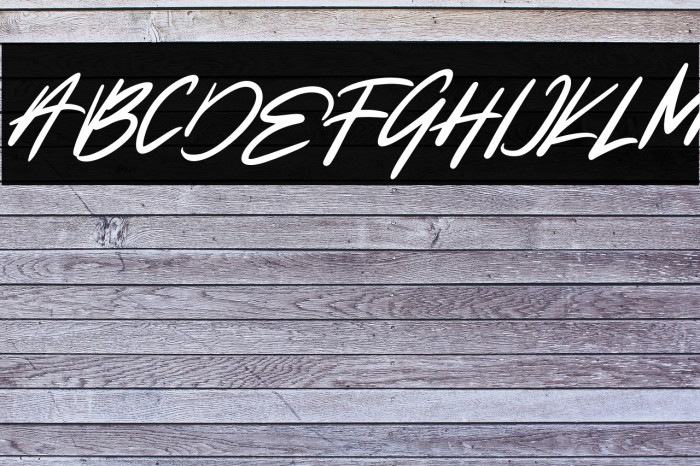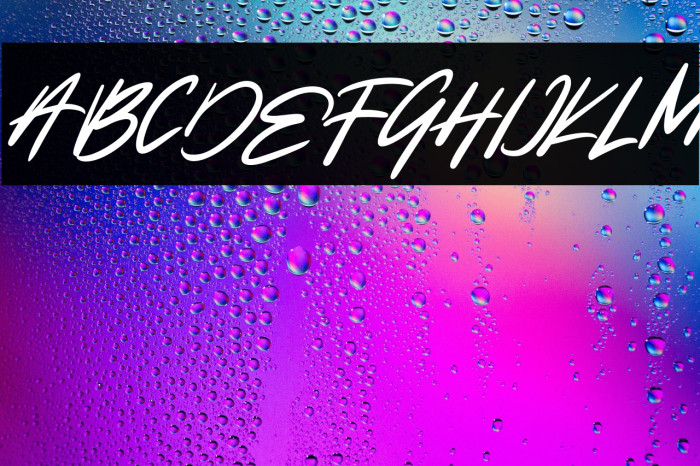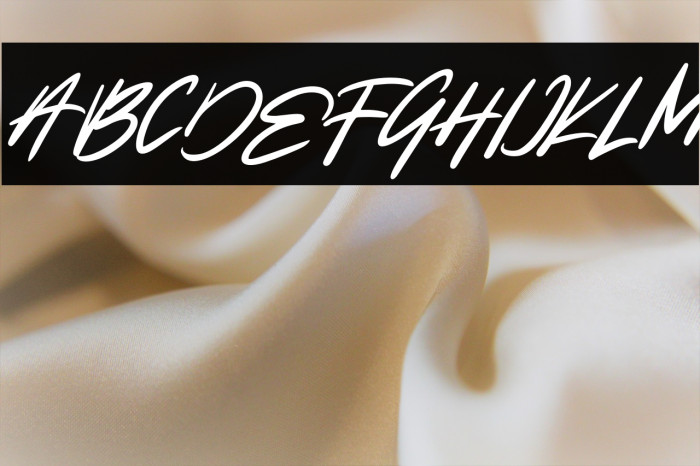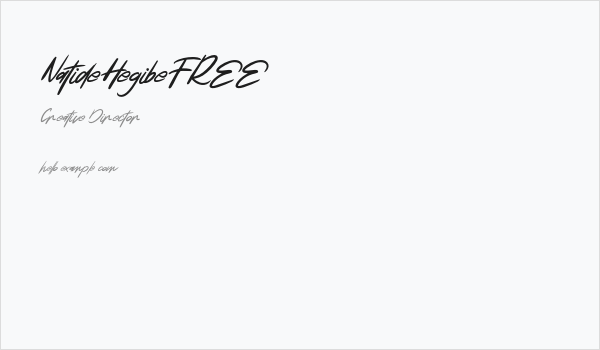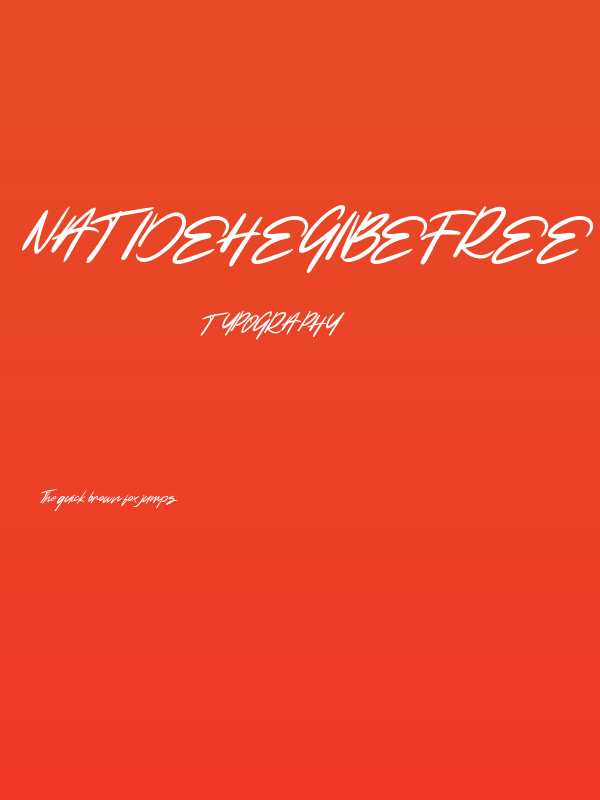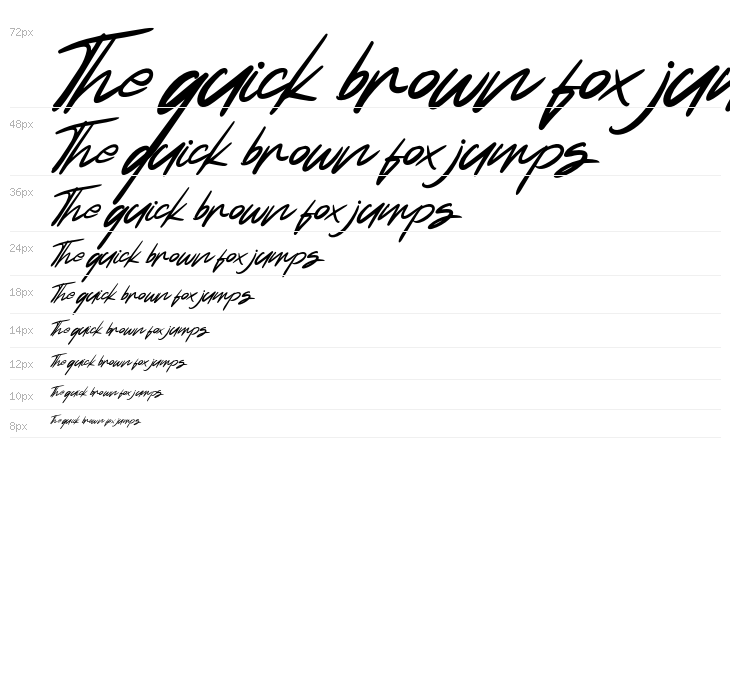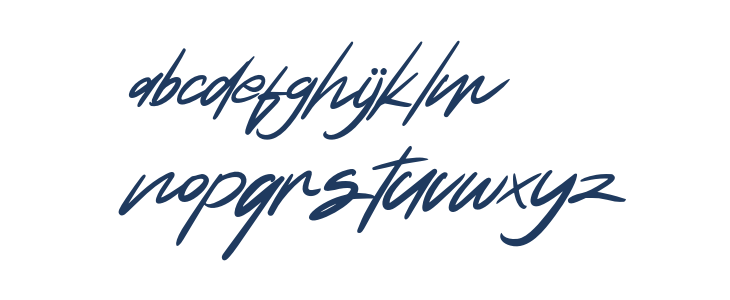
NatideHegibeFREE Font
NatideHegibeFREE Description
This font features a dynamic and energetic script style, characterized by its fluid, cursive strokes and a sense of motion. The uppercase letters are bold and slightly slanted, giving a sense of speed and urgency. The lowercase letters maintain a consistent flow, with some characters like 'g' and 'y' having distinctive loops that add to the overall aesthetic. The font's design is reminiscent of handwritten calligraphy, with a modern twist that makes it suitable for contemporary designs. The characters are closely spaced, enhancing the cohesive look of the text. This font is ideal for projects that require a personal touch or a creative flair.